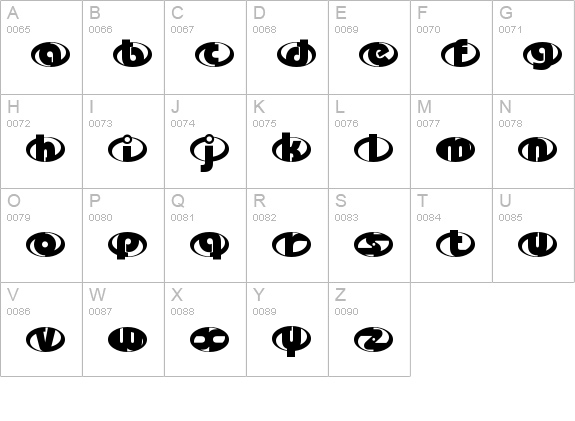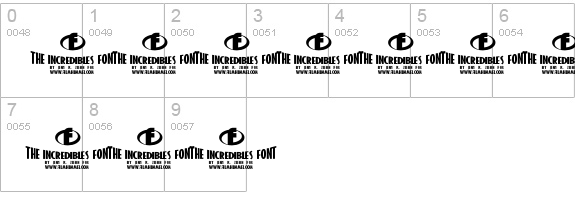
Introducing the Incredibles font, a remarkable typeface that will bring a touch of super-powered style to your designs! With its bold and dynamic letterforms, this font captures the essence of the beloved Incredibles franchise, embodying strength, courage, and a dash of retro charm. The Incredibles font is perfect for all your graphic design needs, whether you're creating eye-catching posters, captivating logos, or exciting merchandise. Its clean lines and iconic shapes make it incredibly versatile, allowing you to effortlessly convey a sense of heroism and adventure. But what sets the Incredibles font apart from the rest is that it's not only visually stunning, but also completely free! That's right, this font is freely available to download at FontsMarket.com. We believe that great design should be accessible to all, and what better way to empower your creativity than by offering this incredible font at no cost? So go ahead and unleash your inner superhero with the Incredibles font. Whether you're a professional designer or a passionate enthusiast, this font will elevate your projects to new heights. Download it today and let your imagination soar!